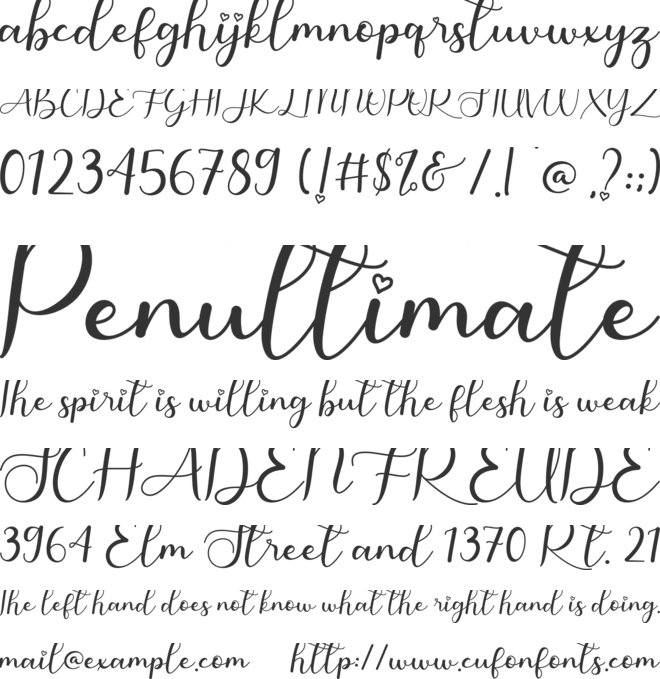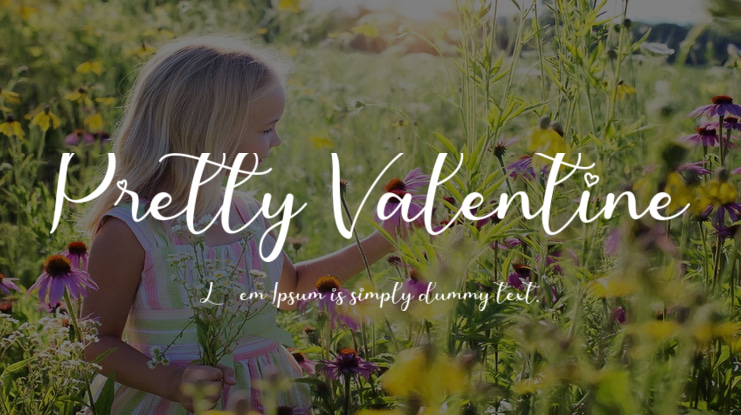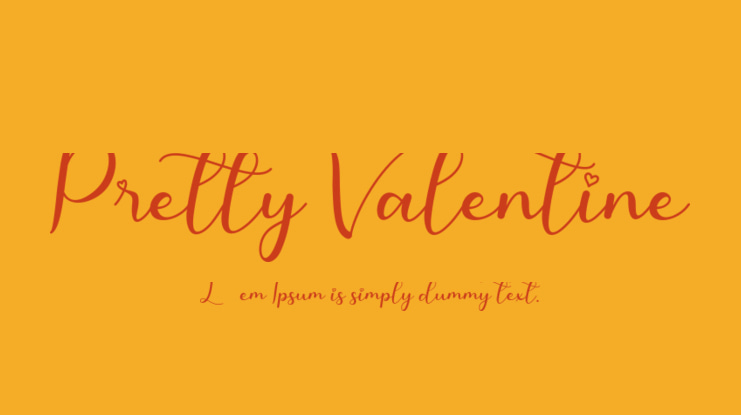
Pretty Valentine Font
Pretty Valentine is a beautiful script font with a romantic theme, featuring lovely swashes. Fall in love with its authentic feel and use it to create gorgeous wedding invitations, beautiful logos and stationary art, eye-catching social media posts, and cute greeting cards. It is PUA encoded which means you can access all of the glyphs and swashes with ease!